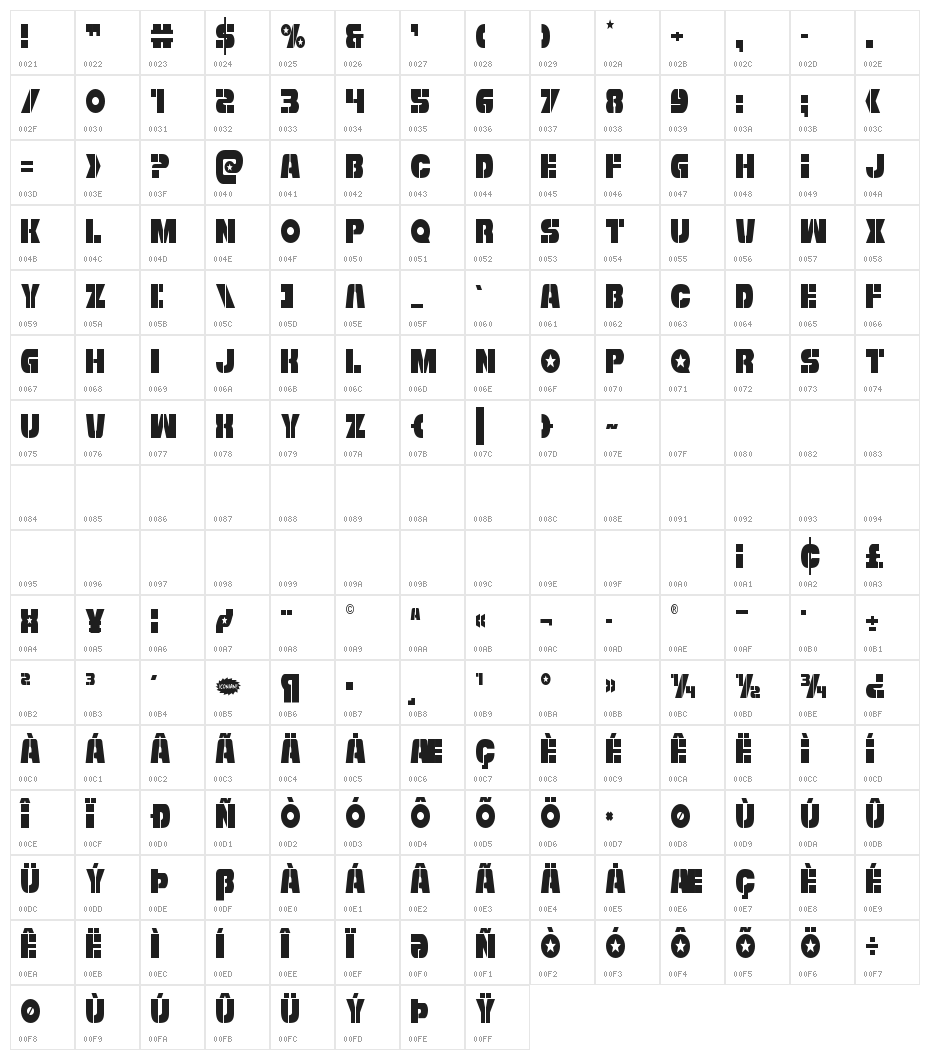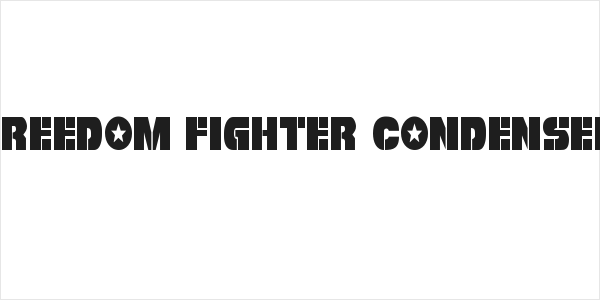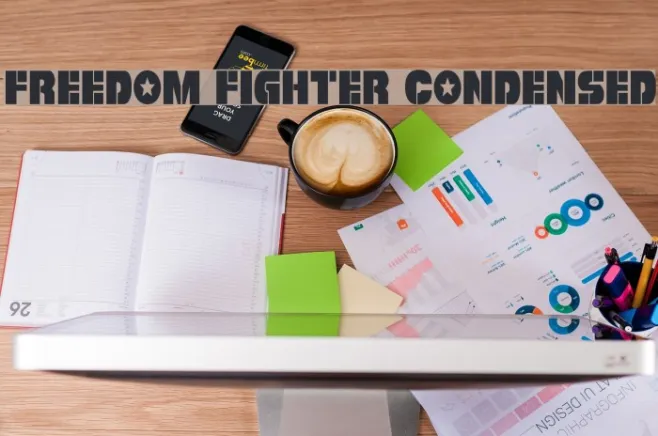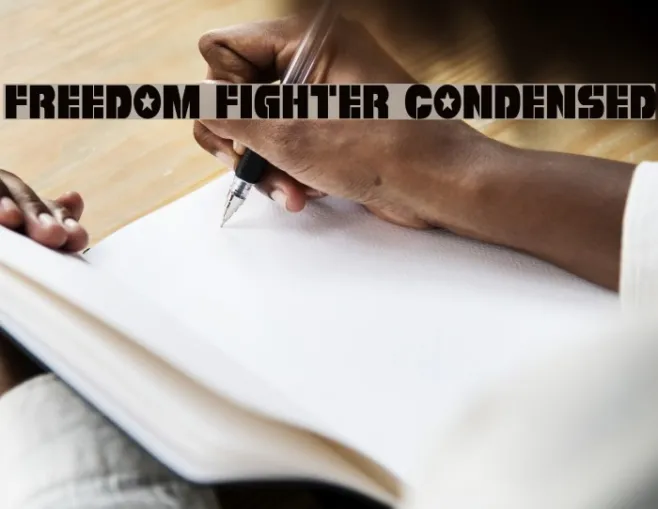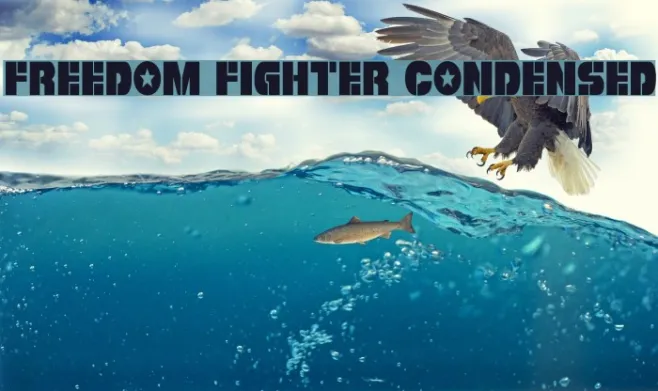
Freedom Fighter Condensed Font
Freedom Fighter Condensed Description
This font features a bold, condensed style with strong geometric shapes and high impact. The characters are blocky and robust, with minimal curves, giving it a powerful and assertive appearance. The uppercase letters are particularly striking, with some characters incorporating star motifs, adding a unique decorative element. The numbers and special characters maintain the same boldness and geometric precision, ensuring consistency across all glyphs. This font is designed to capture attention and convey strength and stability.
| Proposed Projects | Ideal for posters, headlines, branding, and any project requiring a strong, impactful typeface. |